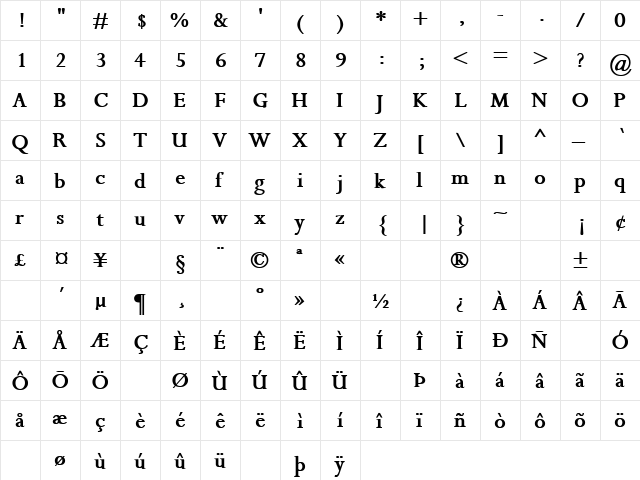
Sweet Emotion 2 Bold
Design Context for Sweet Emotion 2 Typeface
Sweet Emotion 2 is a composed and adaptable typeface that performs quietly and consistently across a wide range of design contexts. The heavy weight commands attention and anchors typographic hierarchies.
Pro Tip: Use Sweet Emotion 2 in both headline and body roles to test its range before committing to a single application.